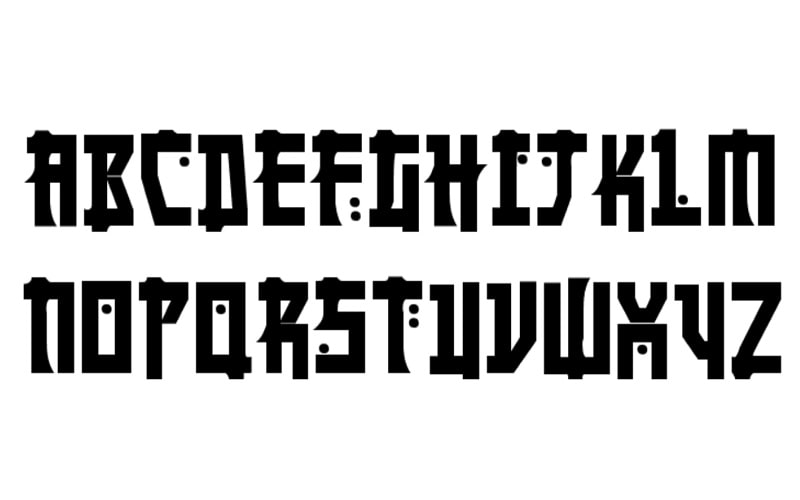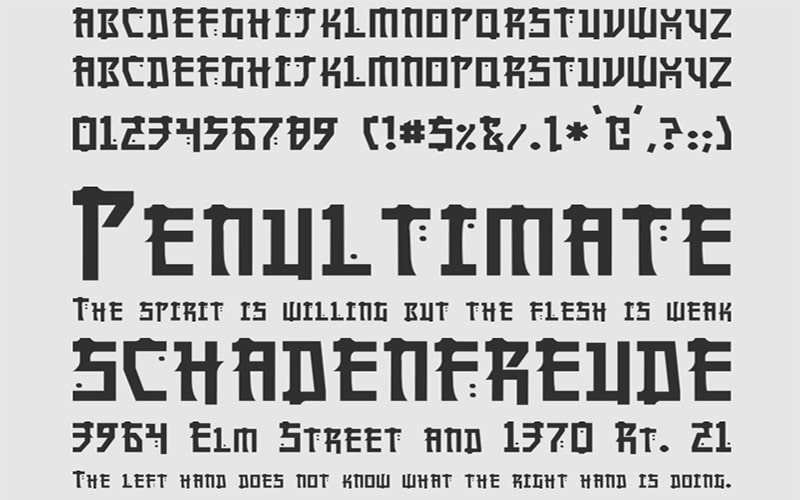
Manga Bold font is a foreign look Script typeface. It looks cool and enjoyable by its name and design. It has bold, unique, and stylish characters.
An international company Pixel Sagas took charge to create this alluring font. The designer Neale Davidson is a member of this company, working on this font.
For the first time, it was published on April 04, 2016. After a few modifications, it was updated on January 13, 2022. The subfamily of this delicate font is regular.
This charming ad dazzling font contains only 1 style such as the “Manga Bold” font style. This single-weight font makes it prominent all over the world.
It is absolutely suitable for all types of fun designs such as graphical projects, product packaging, set background images, houseware designs, and many more.
This provocative font has come with 114 defined characters which makes this font a great idea for designers to increase the conspicuous in their projects.
This glamorous free version font is available in all lowercase and uppercase letters, all caps, and some special characters as well. Let’s take a single look at its texture.